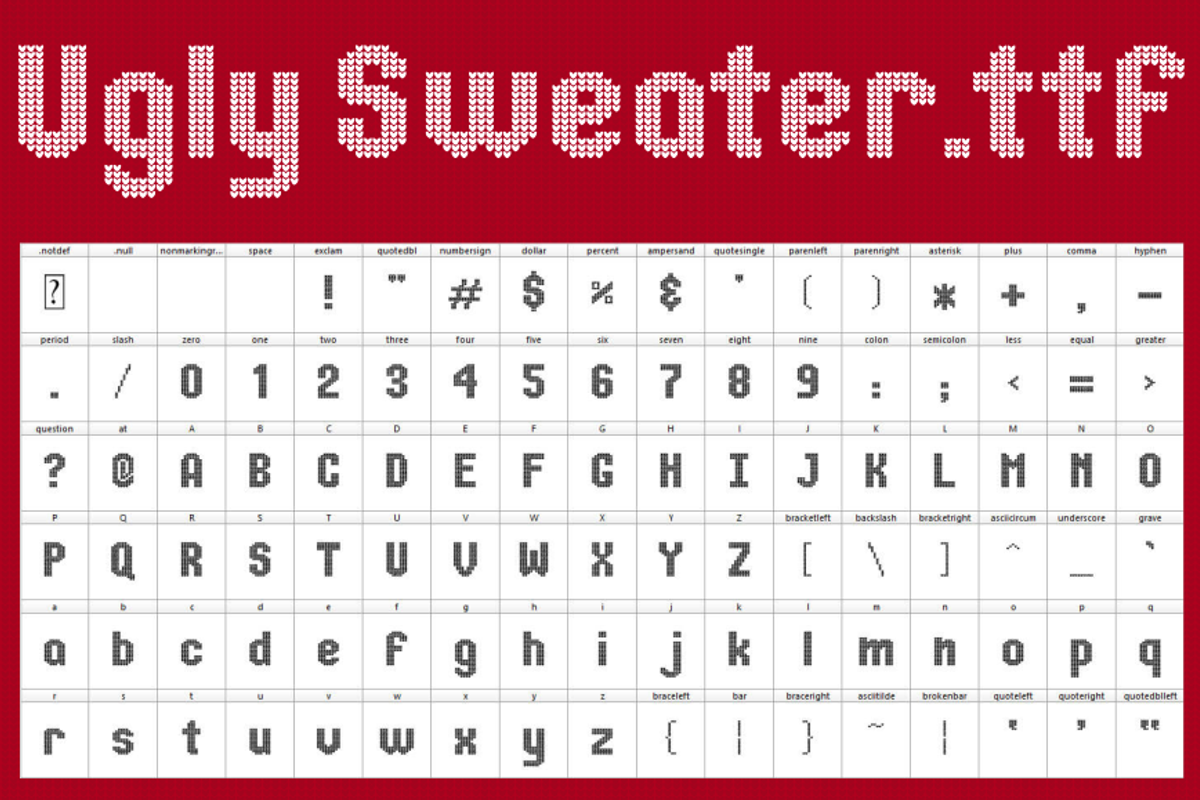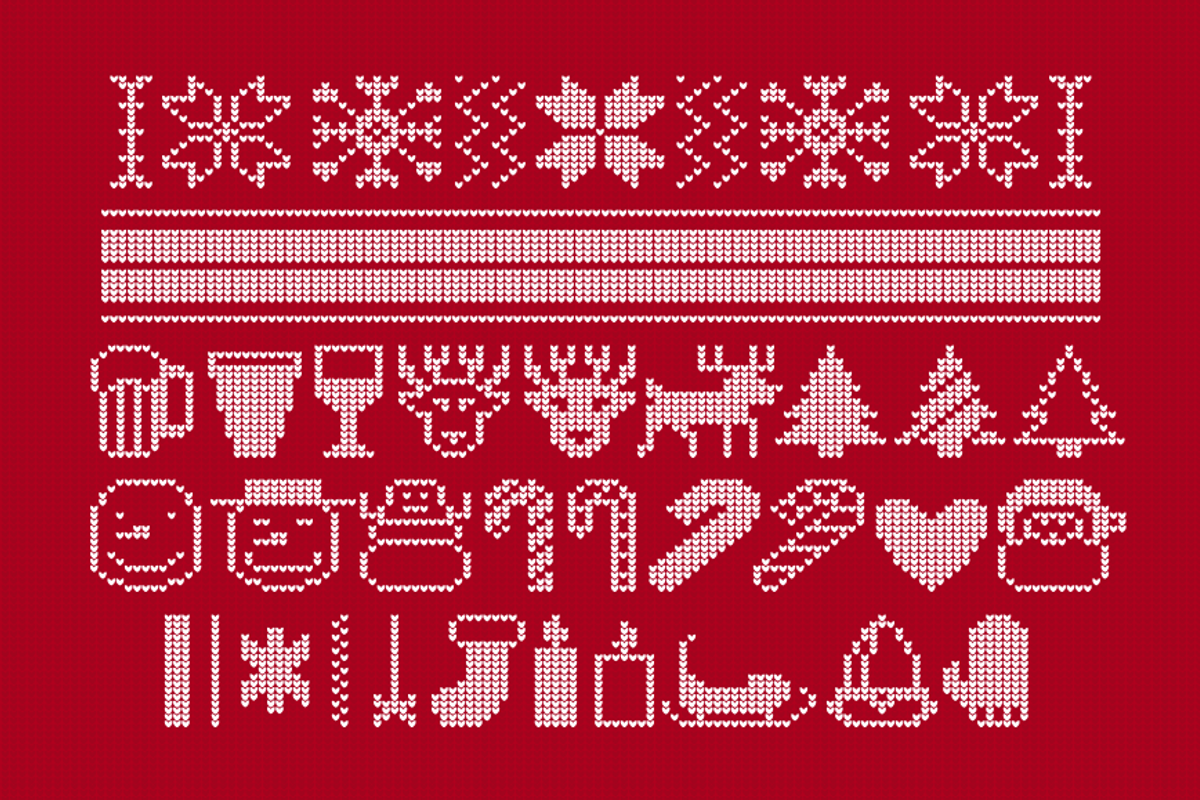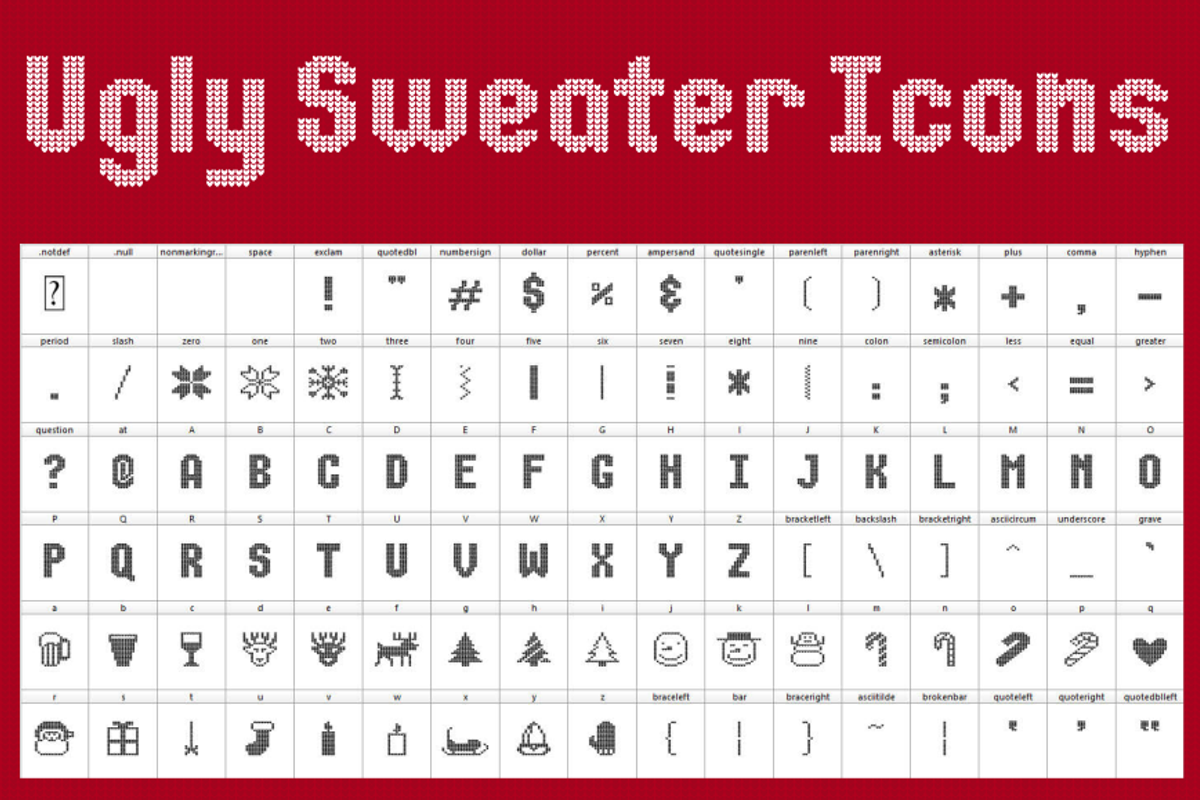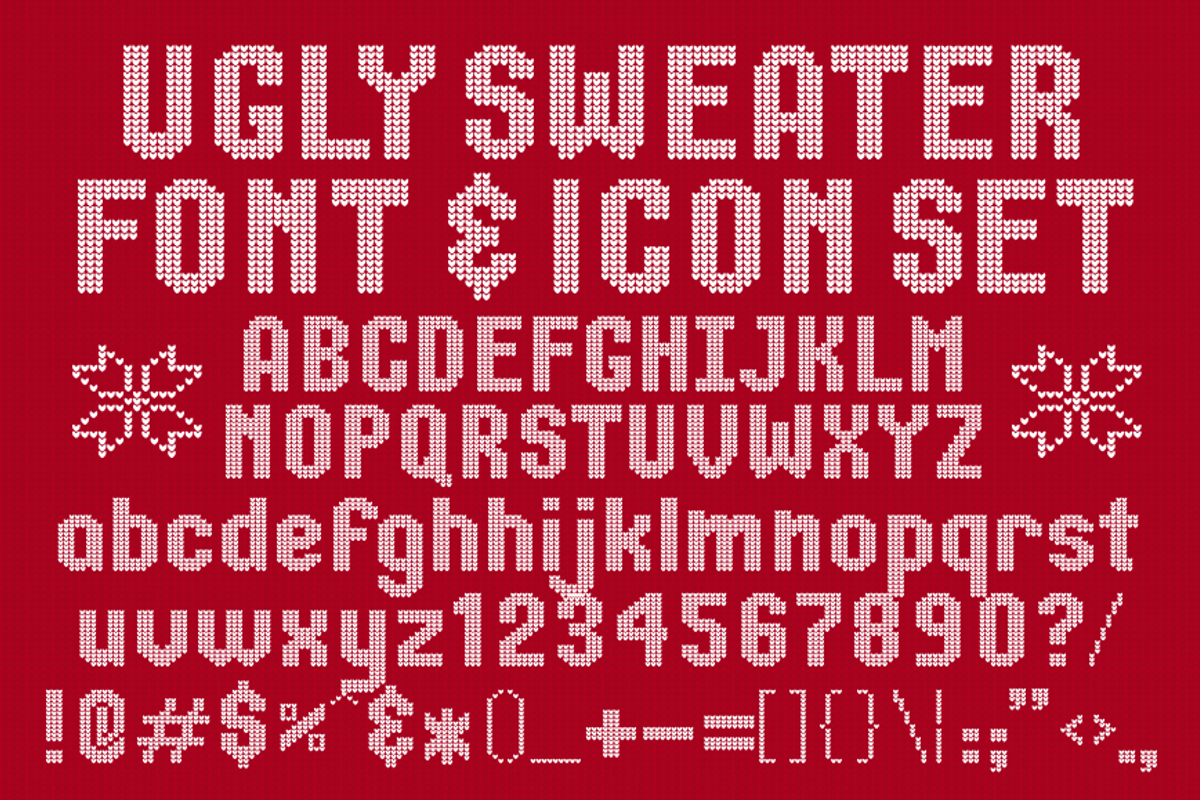
Ugly Sweater Font & Icon Set
Ugly Sweater Font & Icon Set by Fontastic Ventures is a font selected for branding, posters, packaging, typography.
- This font set comes with Uppercase, lowercase ugly sweater characters, all keyboard characters plus various holiday symbols.
Why Ugly Sweater Font & Icon Set is worth a look
Ugly Sweater Font & Icon Set by Fontastic Ventures fits naturally into Branding, posters, packaging, typography.